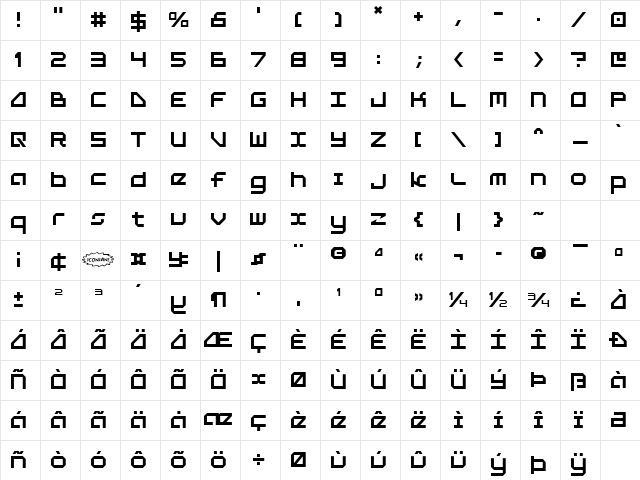
5th Agent Regular Free Font
5th Agent Regular
5th Agent Family
Design Context for 5th Agent
5th Agent is a composed and adaptable typeface that performs quietly and consistently across a wide range of design contexts.